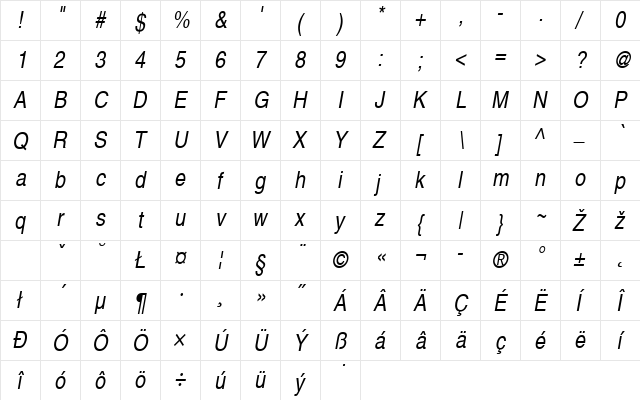
NimbusSanLEECon Italic
Design Context for NimbusSanLEECon Typeface
NimbusSanLEECon takes a measured approach to typography — its balanced proportions and neutral character make it a reliable workhorse for both digital and print work. The slanted form adds forward momentum and visual energy.
Pro Tip: Try NimbusSanLEECon for annotation and caption copy alongside an upright companion — the contrast in angle creates a dynamic but ordered typographic system.